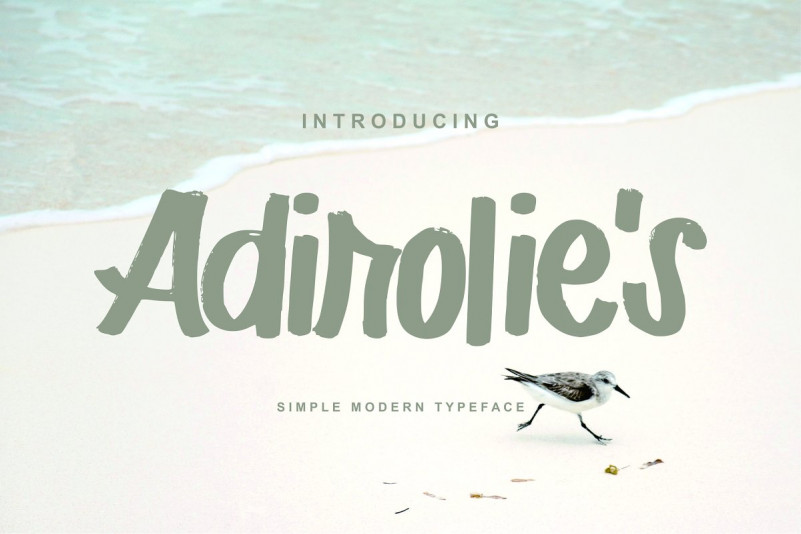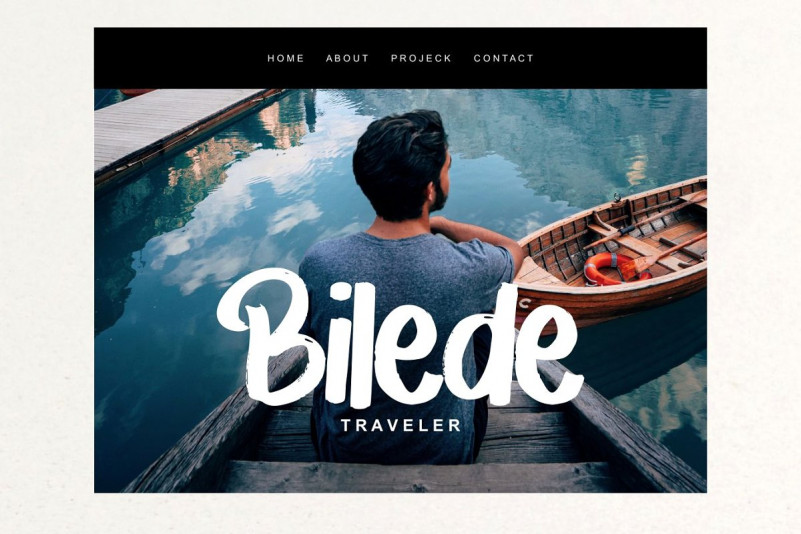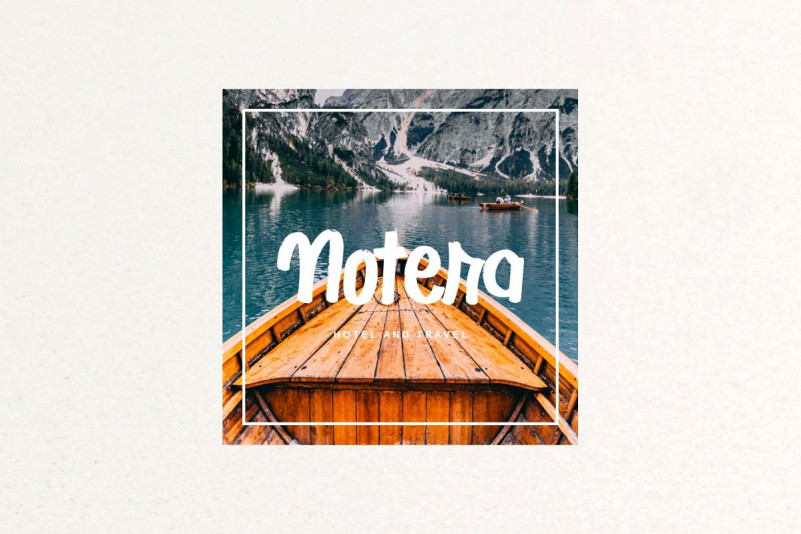
Adirolie’s Font
Adirolie’s | Simple Modern Typeface Font with a calligraphy style, So beautiful on invitation like greeting cards, branding materials, business cards, quotes, posters, and more!